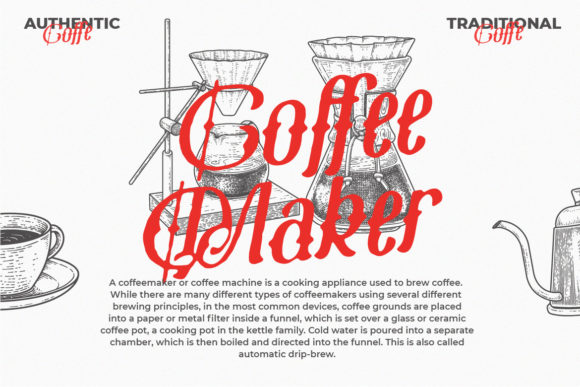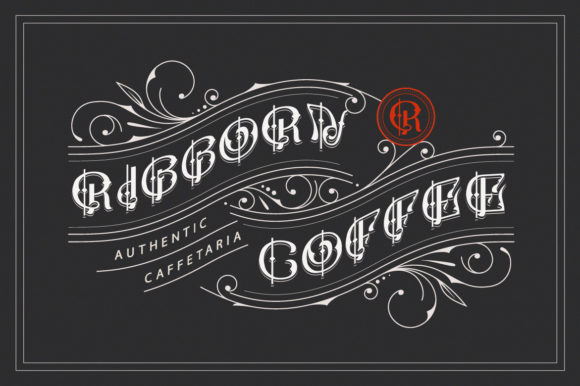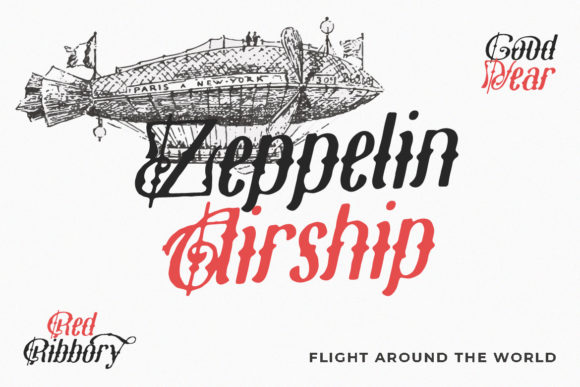
Introduction to Red Ribbory Font
Red Ribbory is a highly detailed blackletter font.
Why Choose Red Ribbory Font?
Red Ribbory Font offers exceptional quality and versatility, making it a valuable addition to your design toolkit. Whether you’re creating for personal projects or commercial use, Red Ribbory Font delivers professional results.